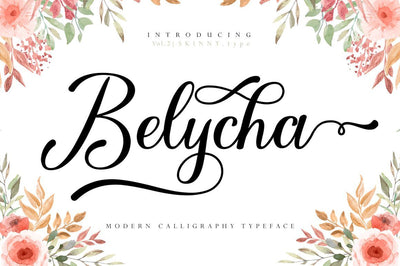
Belycha
Belycha is an elegant and flowing handwritten font. It is PUA encoded which means you can access all of the glyphs and swashes with ease! It maintains its classy calligraphic influences while feeling contemporary and fresh. Fall in love with this font and bring your projects to the highest levels!